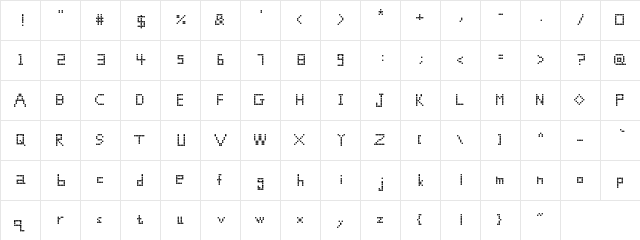
dotter Regular
Design Context for dotter Typeface
dotter celebrates the constraints of early digital type, turning pixel geometry into a distinctive and immediately recognisable style.
Well-suited to indie game interfaces, retro computing aesthetics, and pixel art-adjacent design work.
Pro Tip: Use dotter at sizes that align with its pixel grid for the sharpest rendering — scaling to non-integer multiples can introduce unwanted blur.